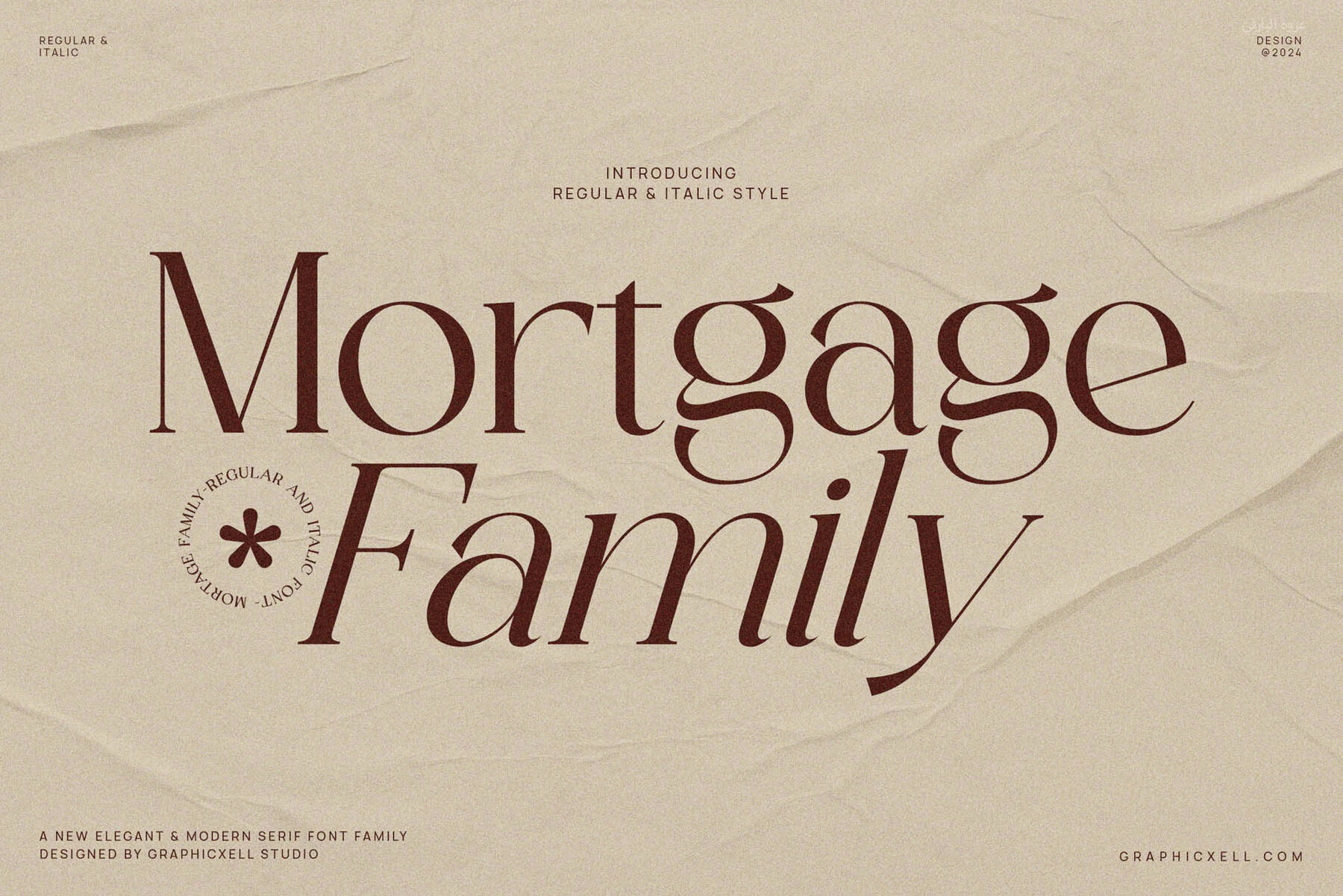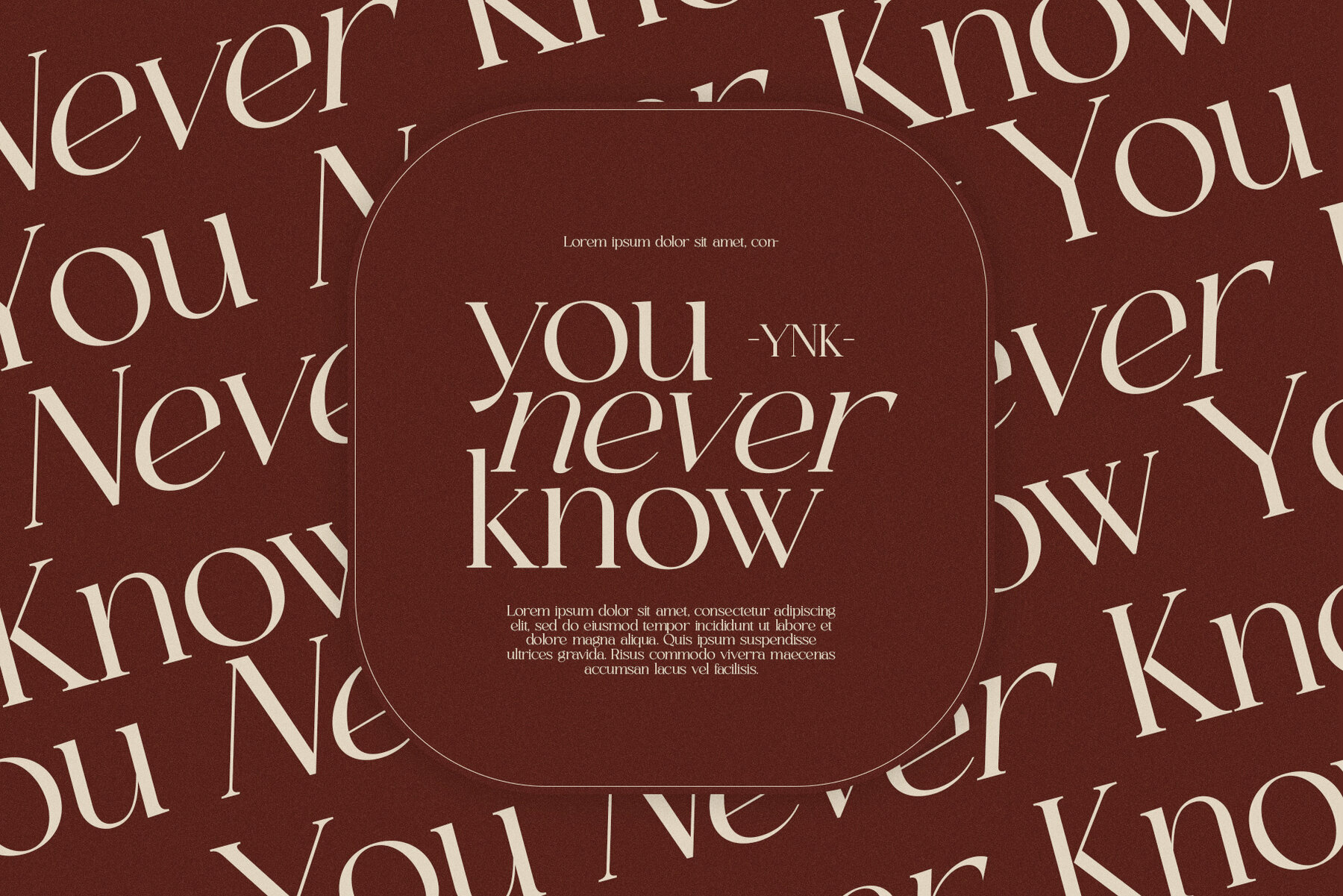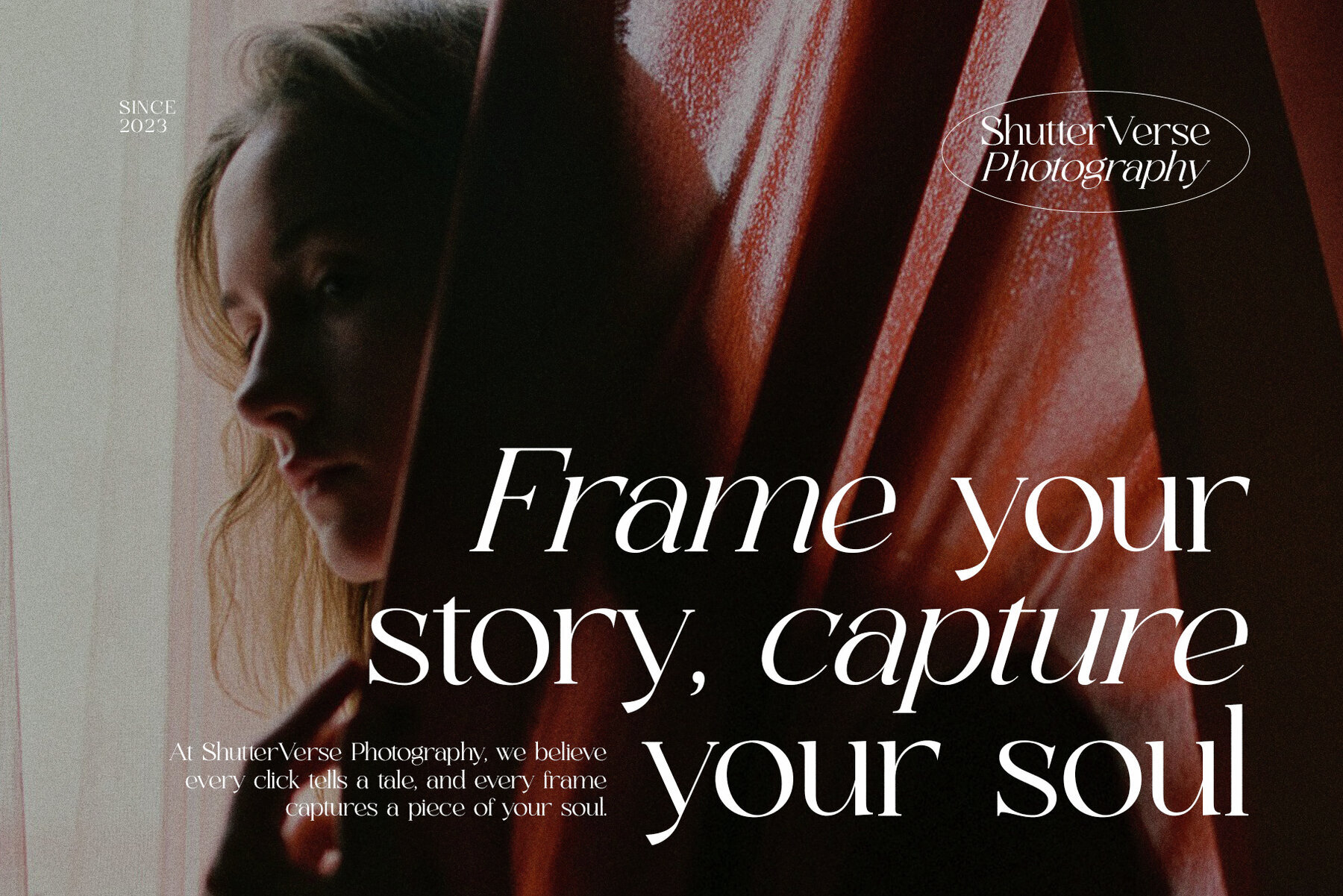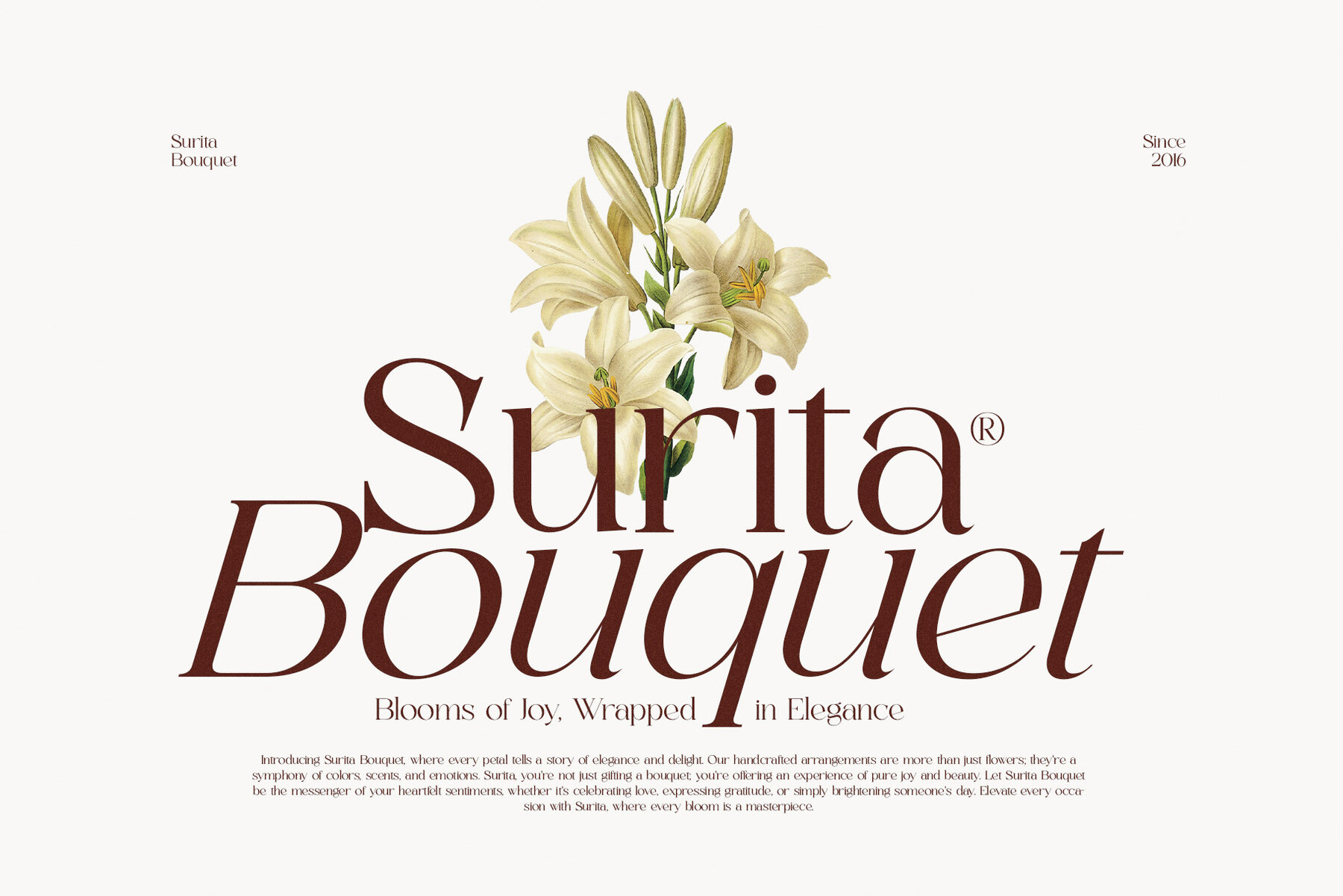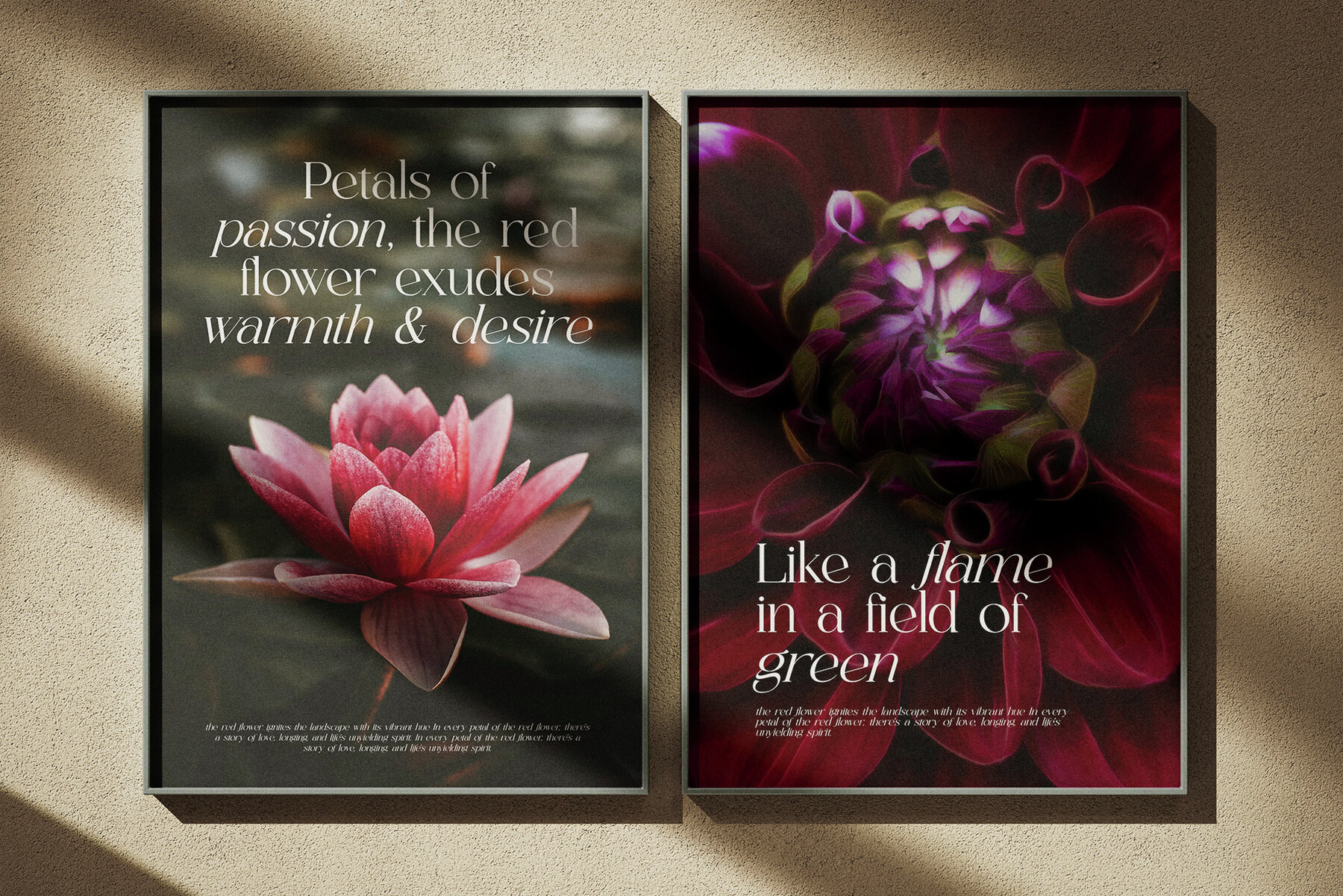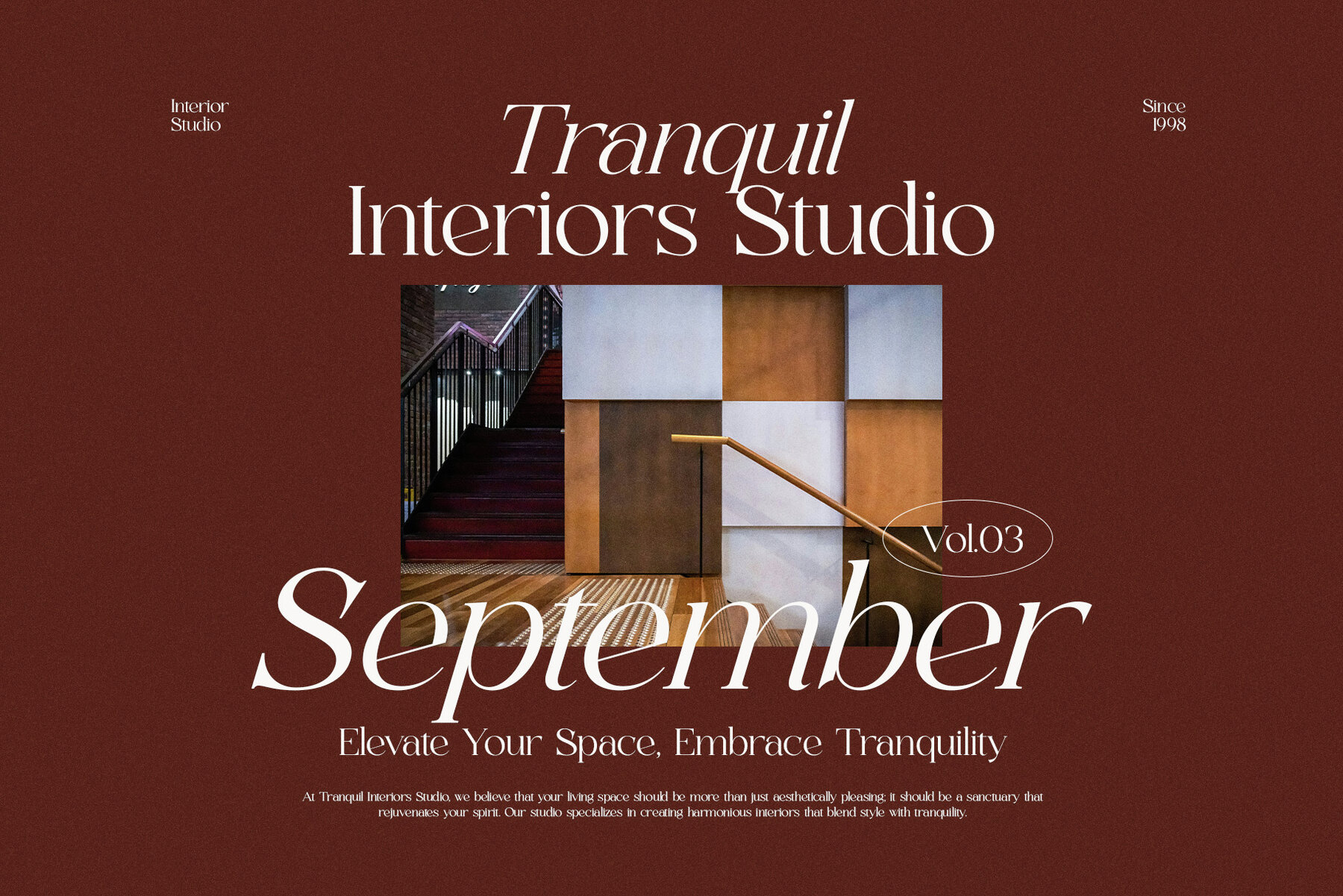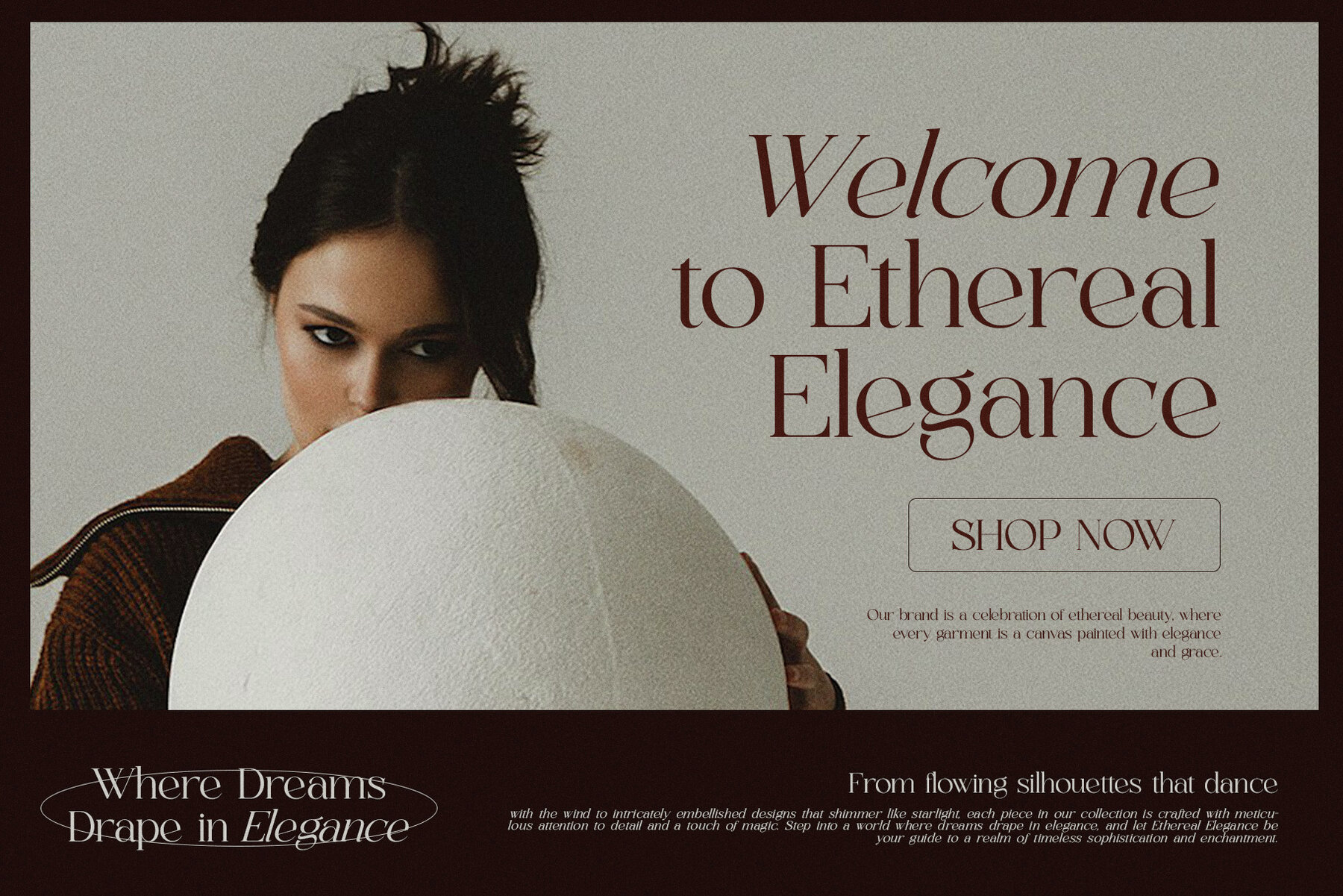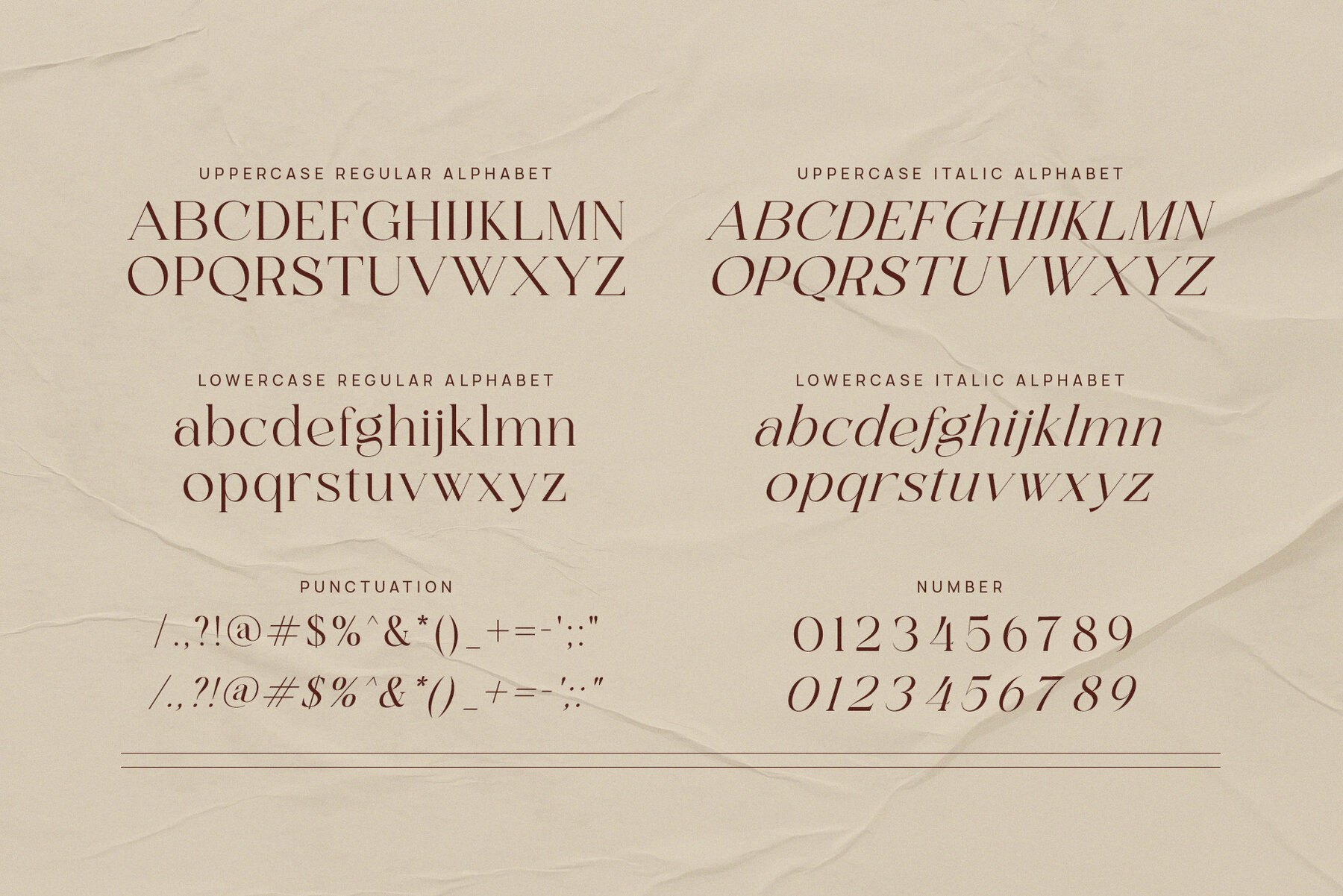
Mortgage is a refined serif font family designed to offer both modern style and high readability. Ideal for long-form text such as articles, its sharpness ensures clarity even at smaller sizes. The font's elegance is particularly noticeable in its italic style, which features beautiful strokes and artistic curves with varying thicknesses.
Perfect for a variety of business applications, Mortgage excels in layout design, logos, magazines, headlines, and branding. Additionally, it is well-suited for use in quotes, thanks to its classic yet contemporary appearance. This combination of versatility and sophistication makes Mortgage an excellent choice for designers seeking a polished and impactful serif font.